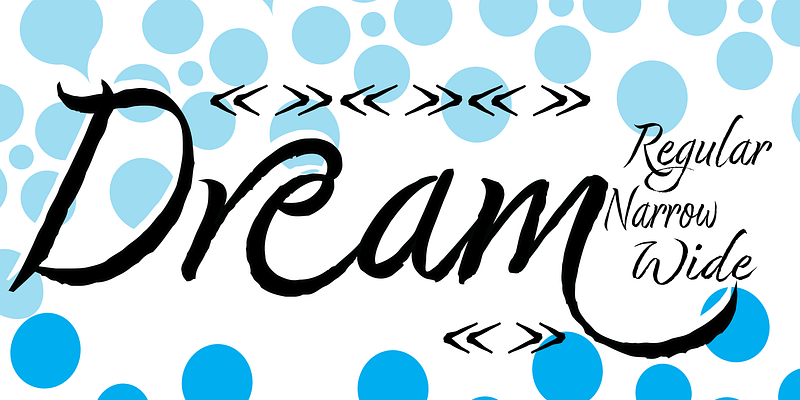
Dream Big Font Free Download
Dream Big Font Free Download is a bold, playful script typeface full of energy and positivity—perfect for inspirational quotes, branding, children’s products, social media graphics, t-shirt designs, and any project that calls for a fun and uplifting vibe.
Dream Big Font Free Download features hand-lettered brush strokes with smooth curves and a casual bounce, giving your text a friendly, confident tone. Its expressive letterforms bring a sense of motion and joy, making it ideal for headlines, logos, and creative displays where personality is key.
This font pairs wonderfully with clean sans-serifs or rounded display fonts to create dynamic and eye-catching compositions. Whether you're designing for a lifestyle brand or adding flair to digital content, Dream Big delivers boldness with heart.